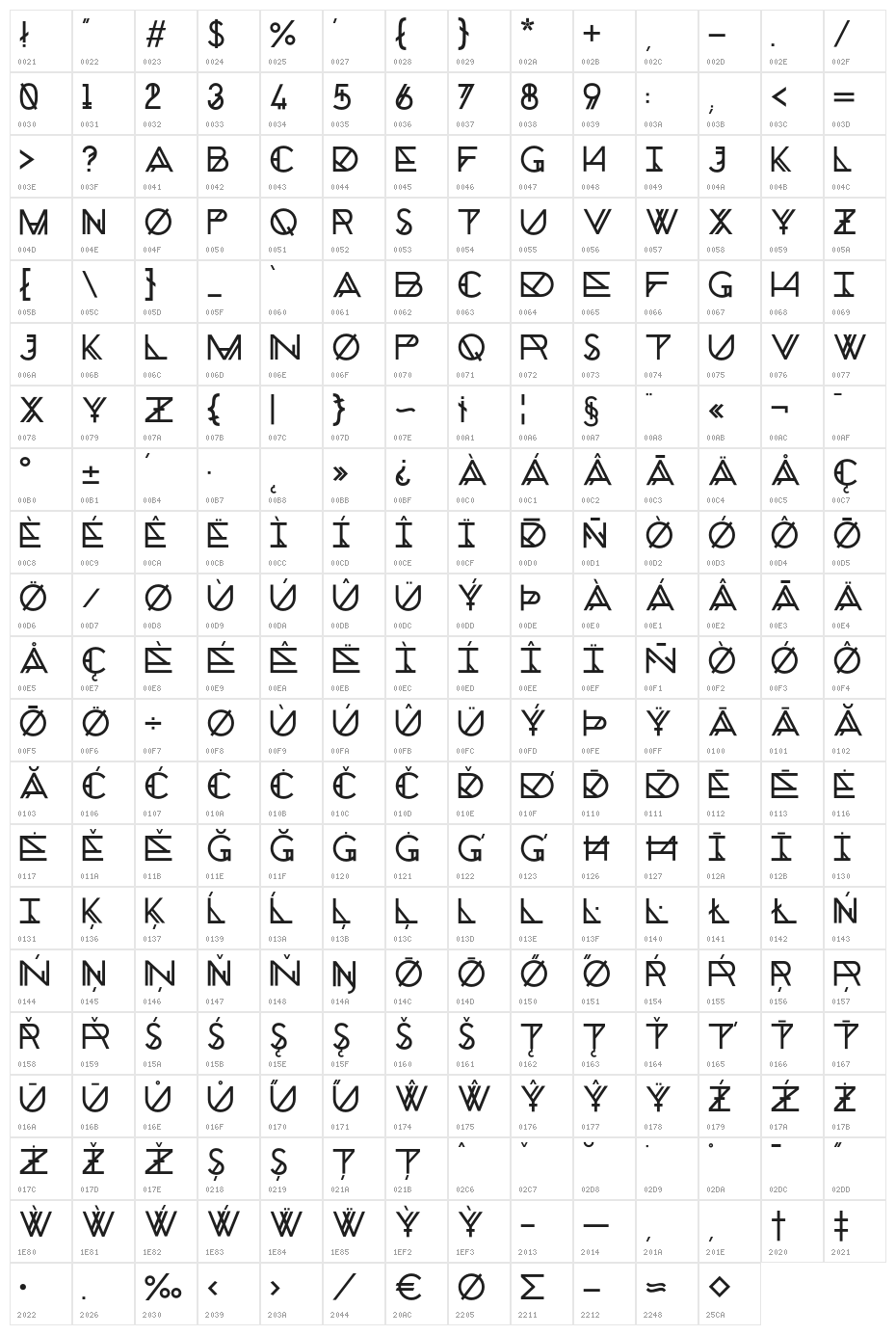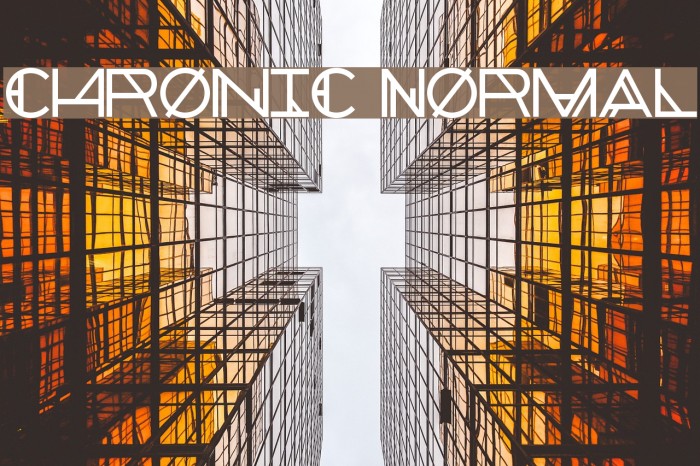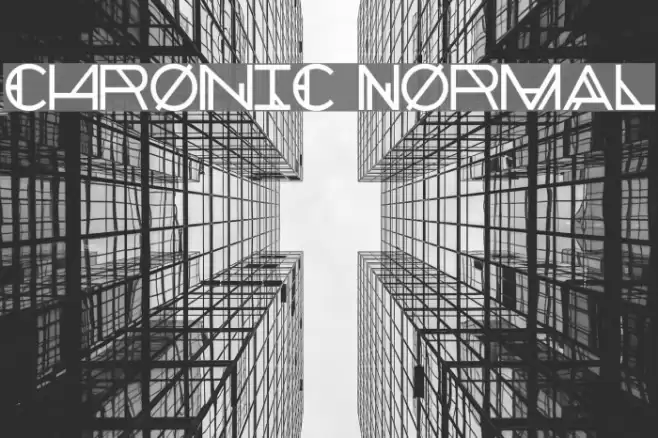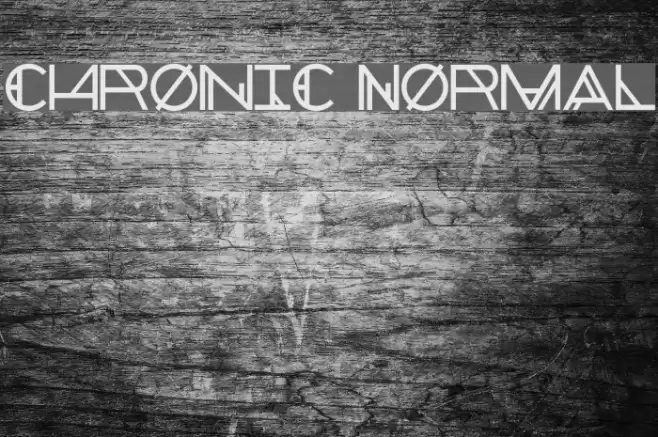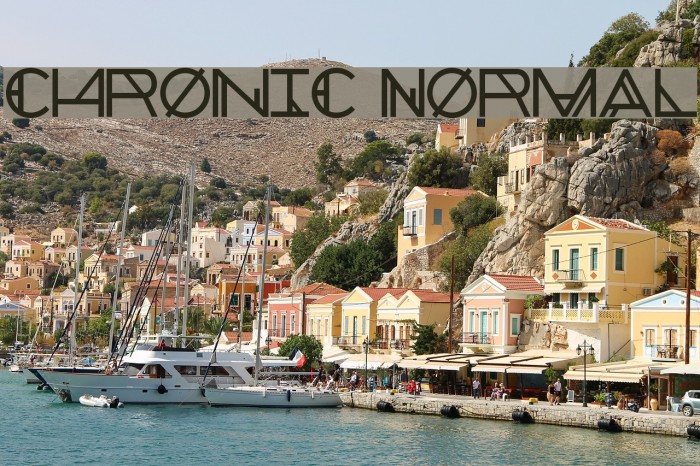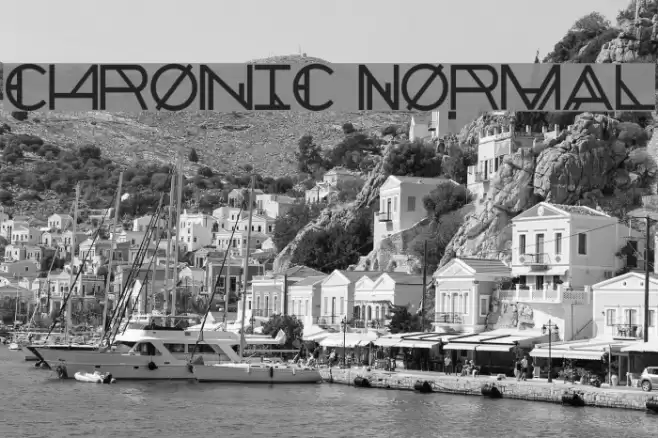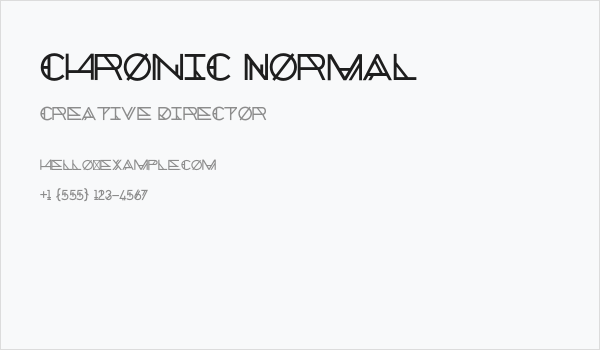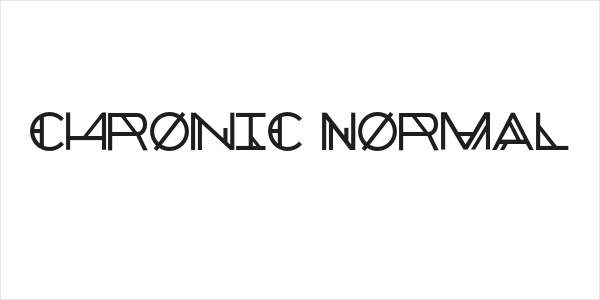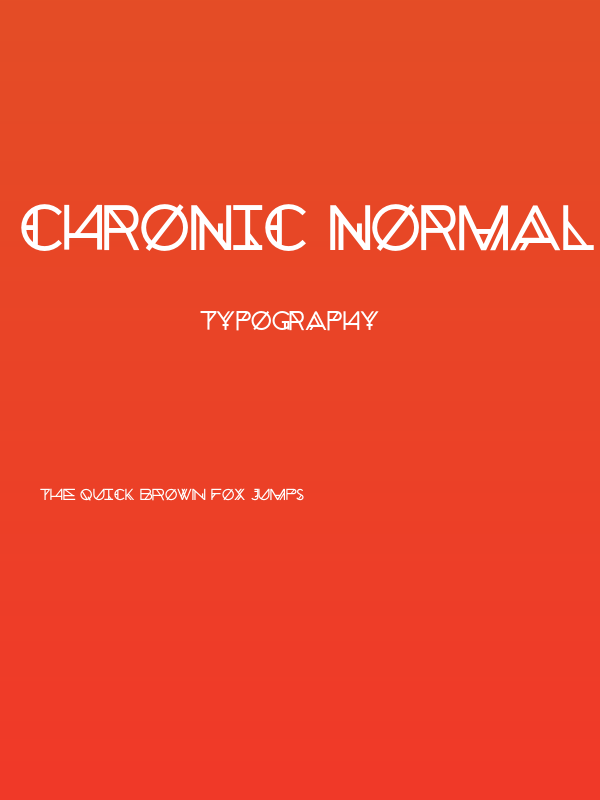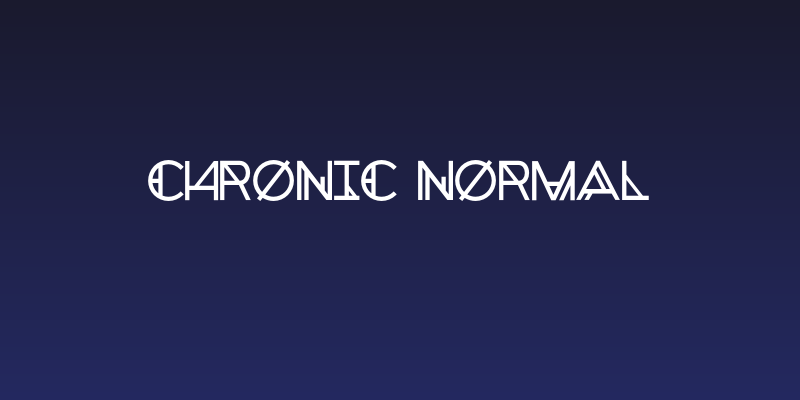
Chronic Normal Font
Chronic Normal Description
This font features a bold and geometric design, characterized by sharp angles and distinct lines. The uppercase and lowercase letters share a consistent style, with unique cutouts and slashes that give it a futuristic and edgy appearance. The numbers and special characters maintain this theme, offering a cohesive look across all glyphs. The font's structure is clean and modern, making it stand out with its high contrast and striking visual impact. Its unique style is suitable for projects that require a bold statement or a modern aesthetic.
Proposed ProjectsIdeal for branding, posters, album covers, and any design needing a modern, edgy look.